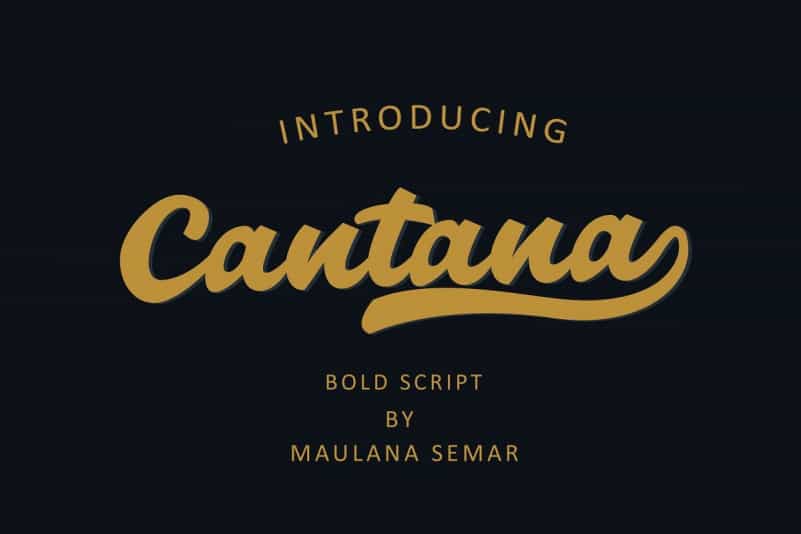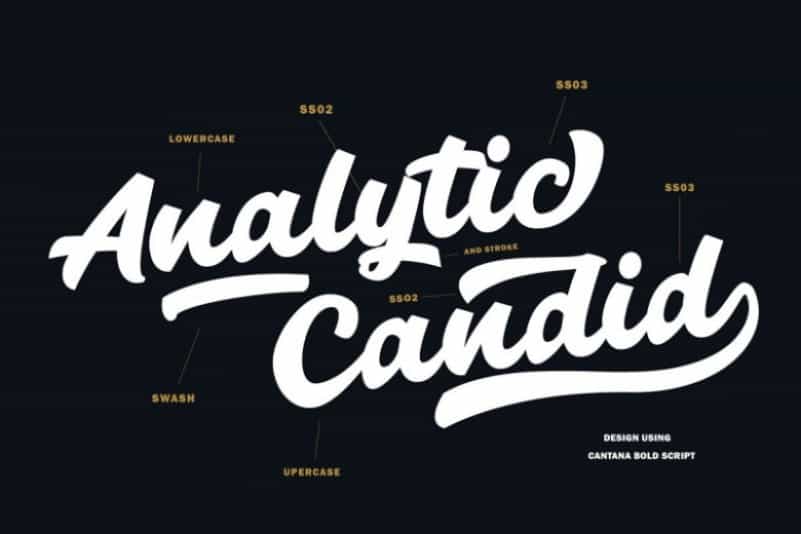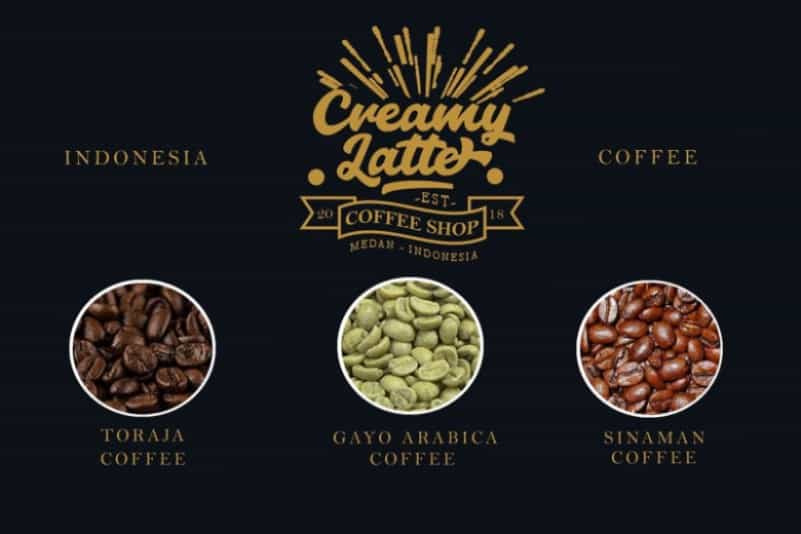
Cantana Font is a clear script font that has a strong and beautiful appearance. This font is perfect for branding and to give your any project a beautiful look, are perfect for wedding invitation or your blog. However, with their assistance, you can make a logo or a beautiful frame for your home. Or just for your small business, book covers, stationery, marketing, magazines, and many more.